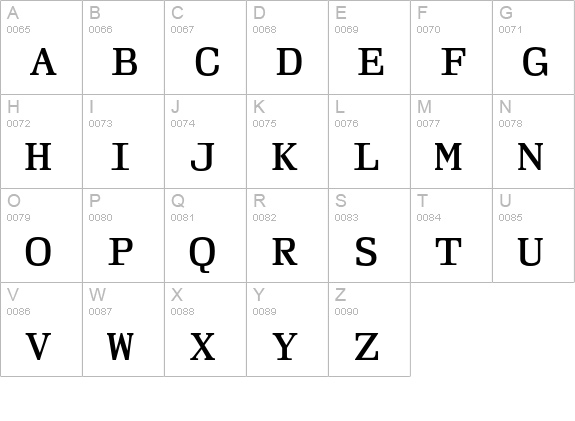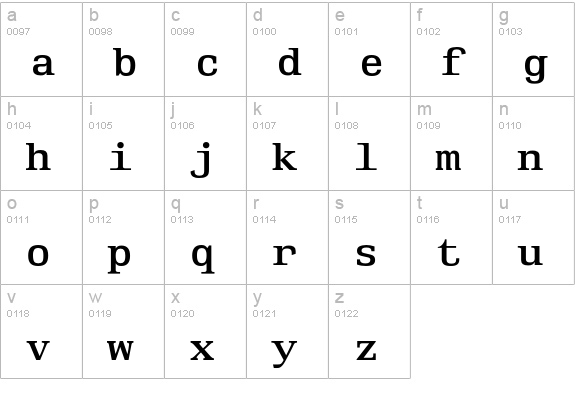
MonantiEF-SemiBold is a sub-bold, structured variant in the MonantiEF typeface family \xE2\x80\x94 well suited to sub-headlines and emphasised passages.
MonantiEF-SemiBold is a sleek and modern font that exudes confidence and sophistication. With its bold and strong presence, this typeface is perfect for making a statement in your designs. The semi-bold weight strikes the perfect balance between subtlety and impact, making it versatile for a wide range of projects. What sets MonantiEF-SemiBold apart is not just its stylish aesthetics, but also the fact that it is available for free. That's right, you can easily download this font at FontsMarket.com without any cost. Whether you're working on branding, advertising, or any other design project, MonantiEF-SemiBold is a reliable choice that will elevate your work to the next level. Don't miss out on the opportunity to enhance your designs with this striking and versatile font. Download MonantiEF-SemiBold for free today and experience the difference it can make in your creative projects.